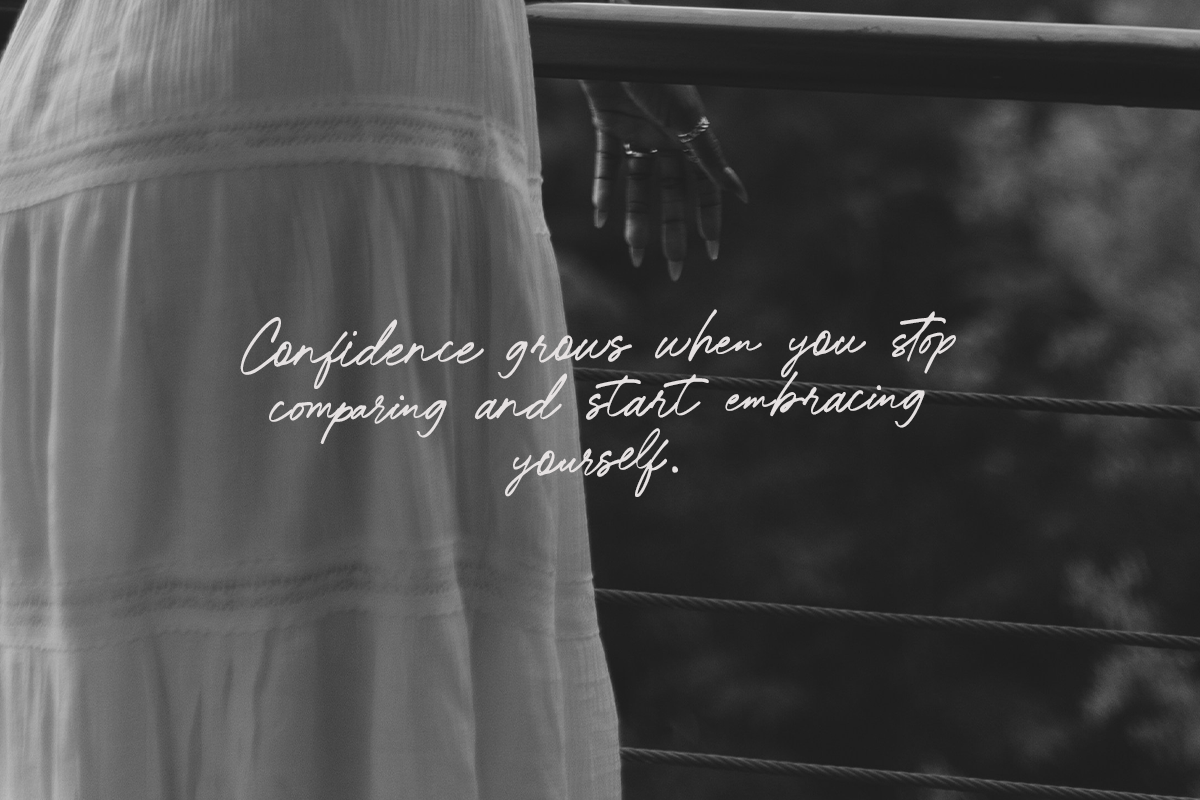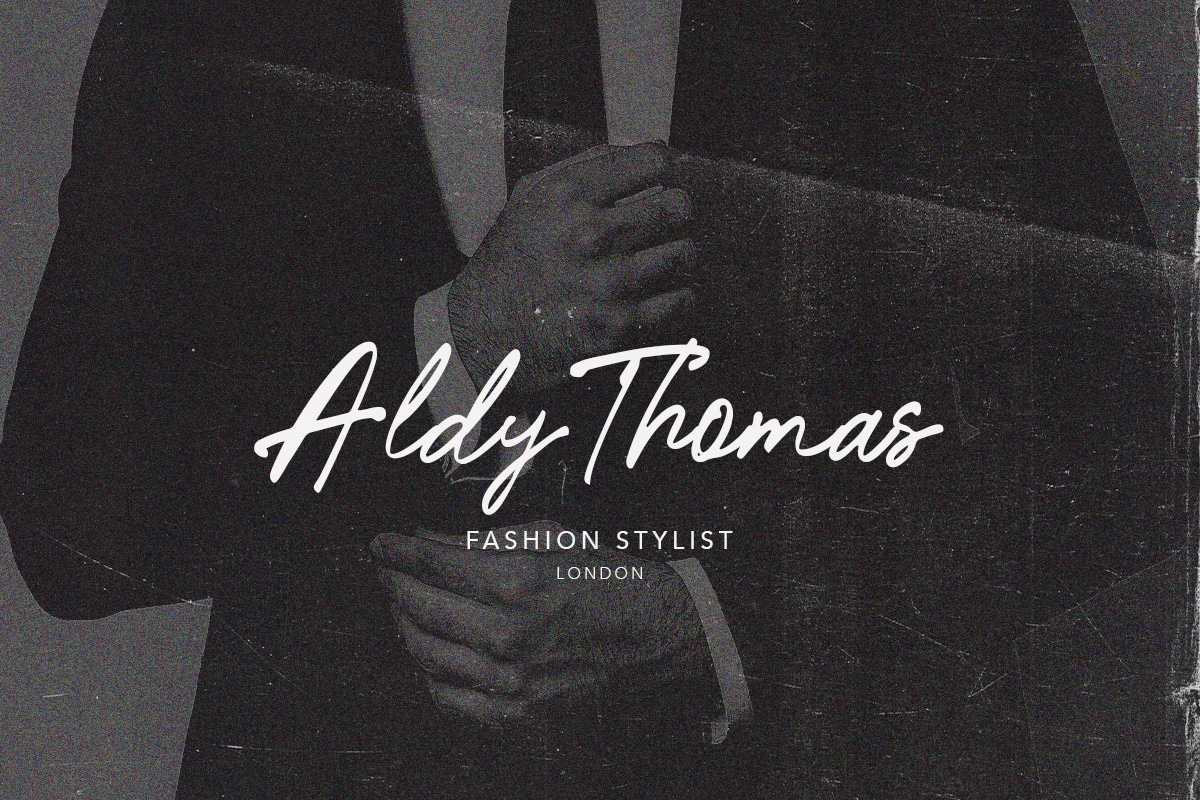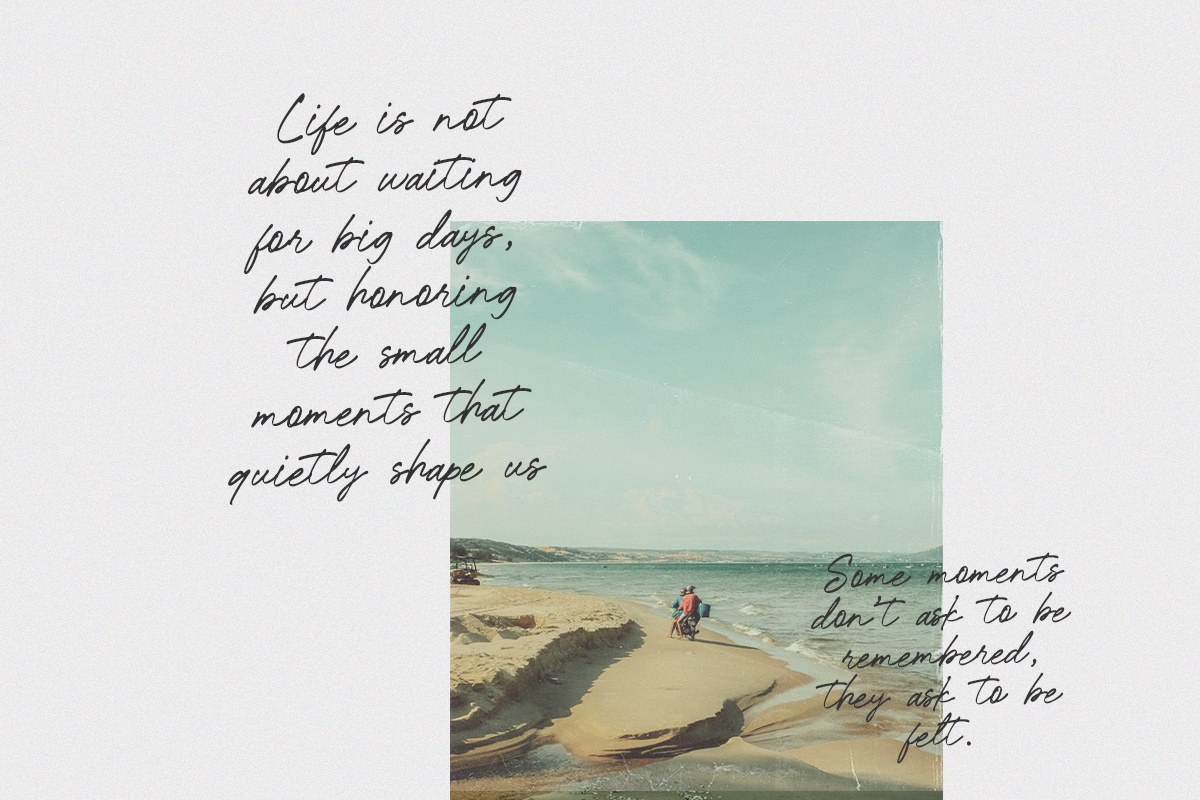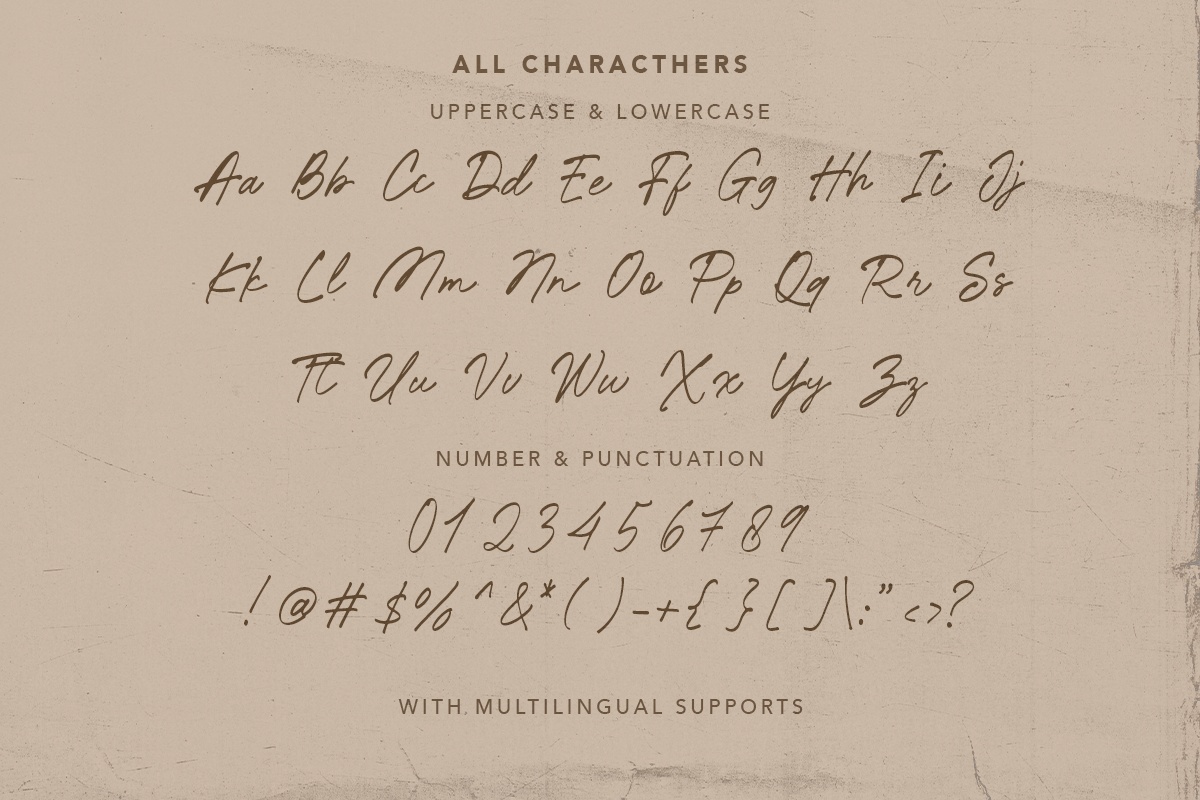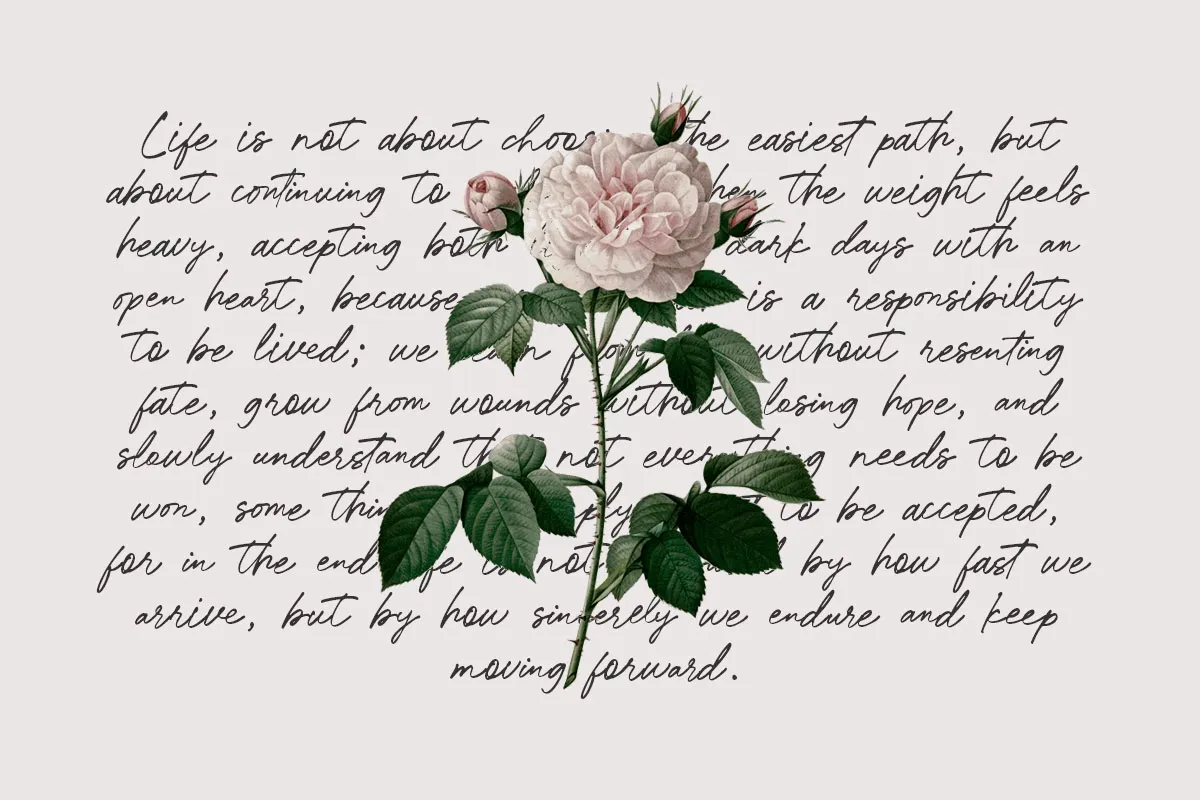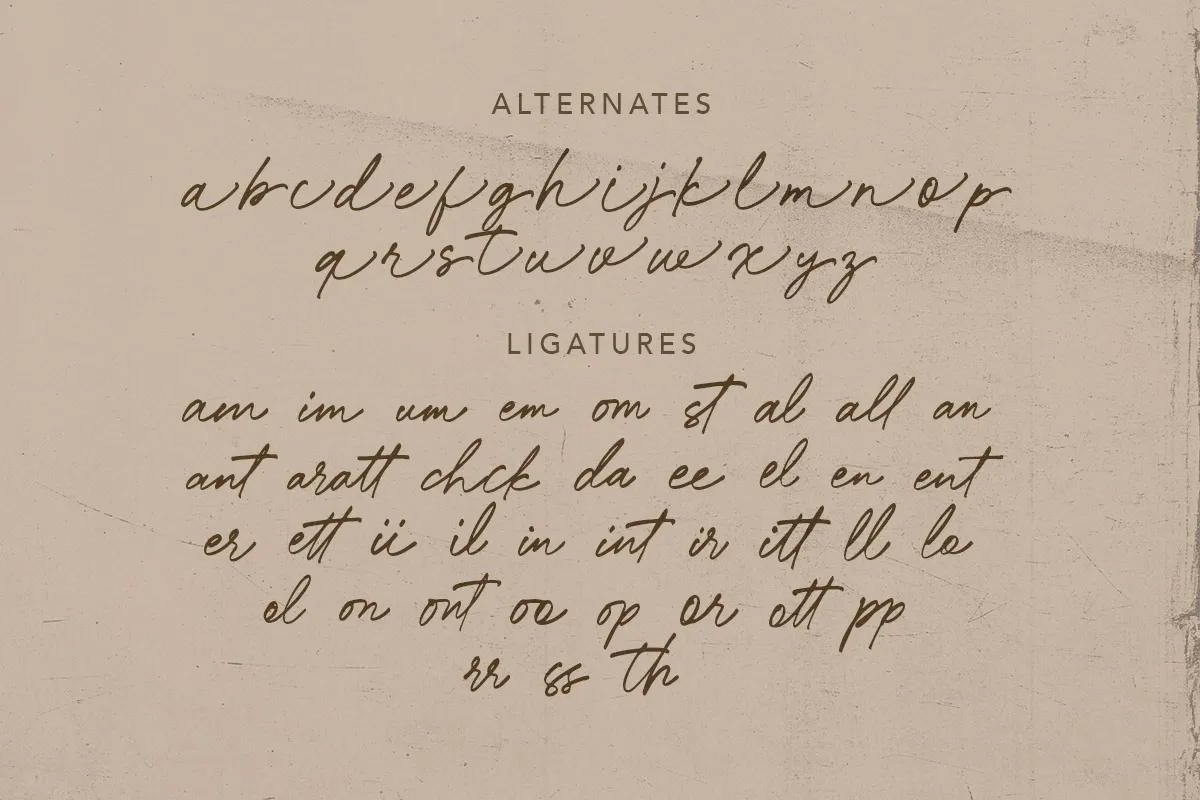
Kallistone Font
Kallistone is a handwritten script font crafted with a unique, natural, and elegant touch. Each stroke flows organically, capturing the beauty of authentic handwriting while maintaining a refined and modern feel. Designed to elevate visual storytelling, Kallistone is perfect for creating stylish, instagram-ready, and emotionally engaging designs. Its natural curves and graceful rhythm make it an excellent choice for fashion branding, photography, social media content, logos, quotes, packaging, and editorial designs. Kallistone brings a sense of warmth, personality, and exclusivity to your work—helping your designs stand out while remaining timeless and effortlessly elegant.
Perfect for:
- Fashion & lifestyle branding
- Photography watermarks
- Instagram & social media content
- Logos & personal branding
- Quotes, posters, and packaging
Let Kallistone add a natural elegance and distinctive character to your creative projects.